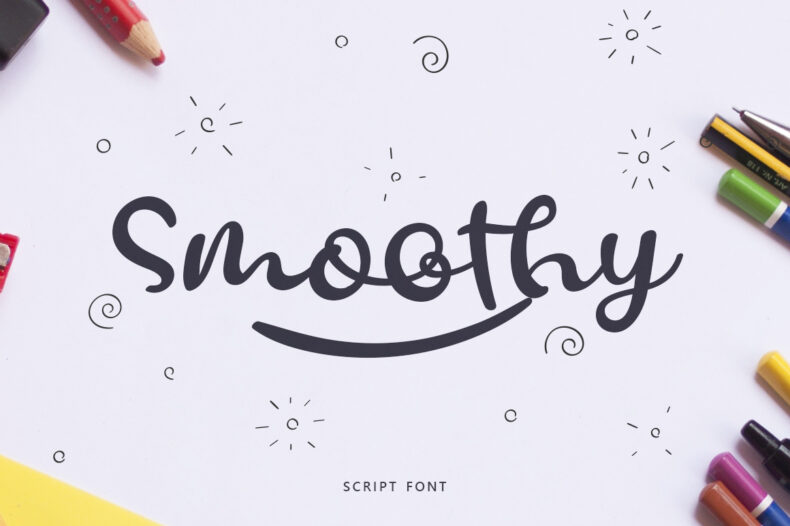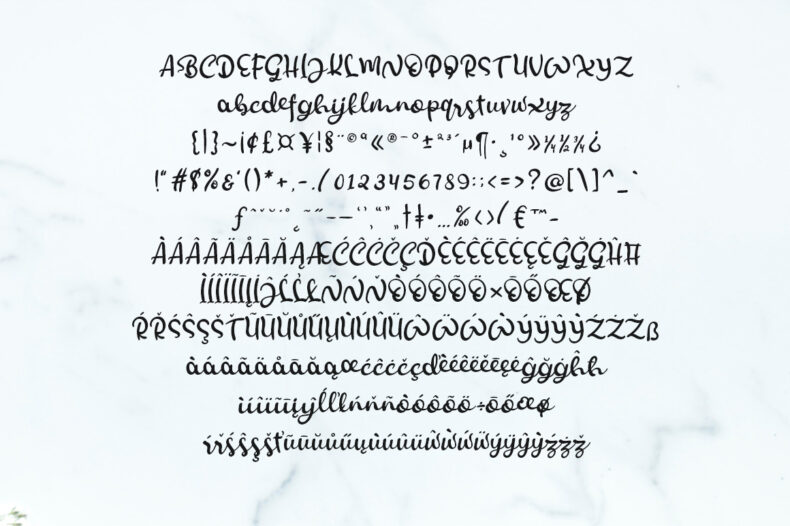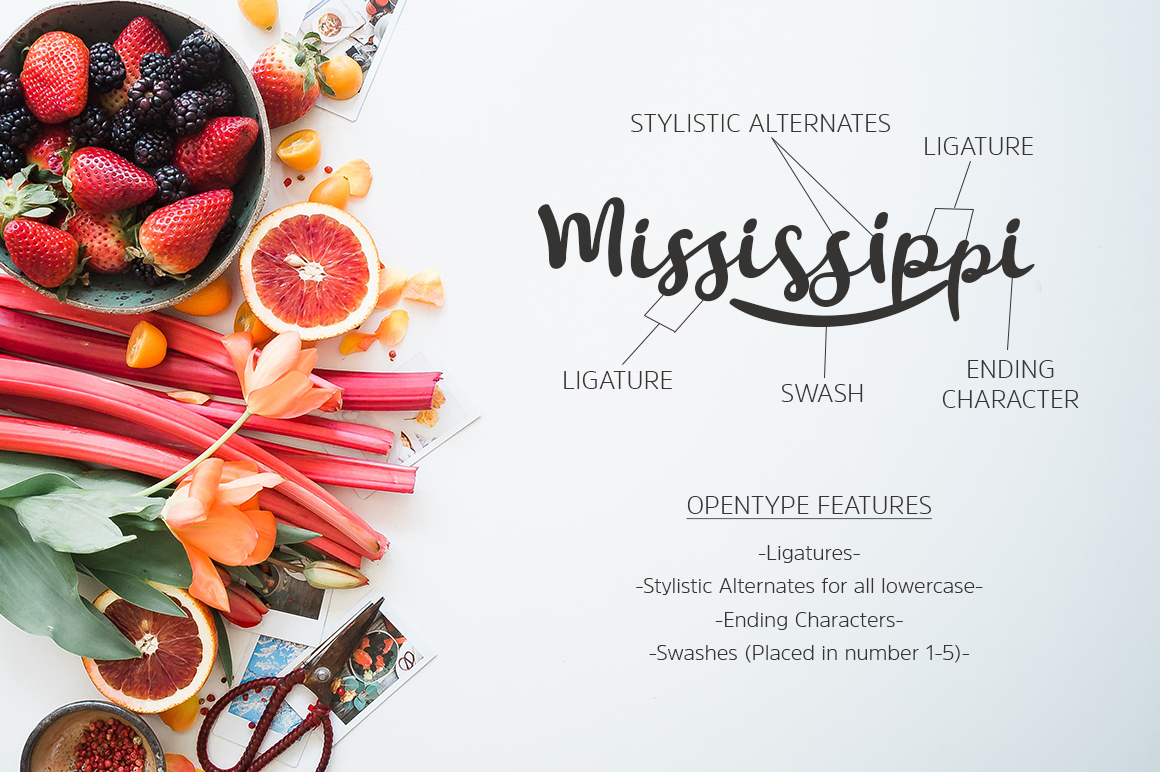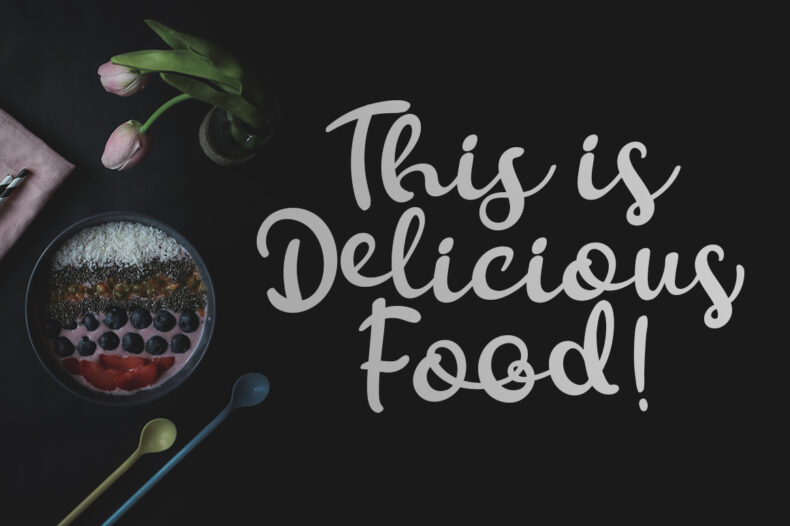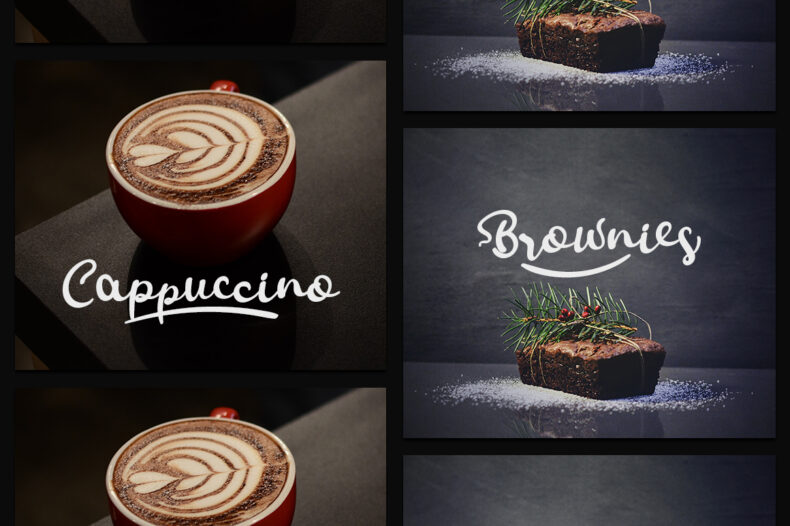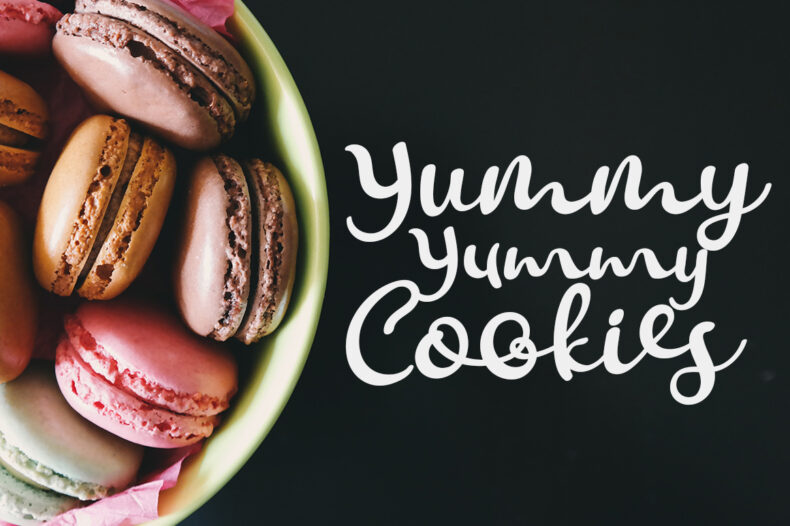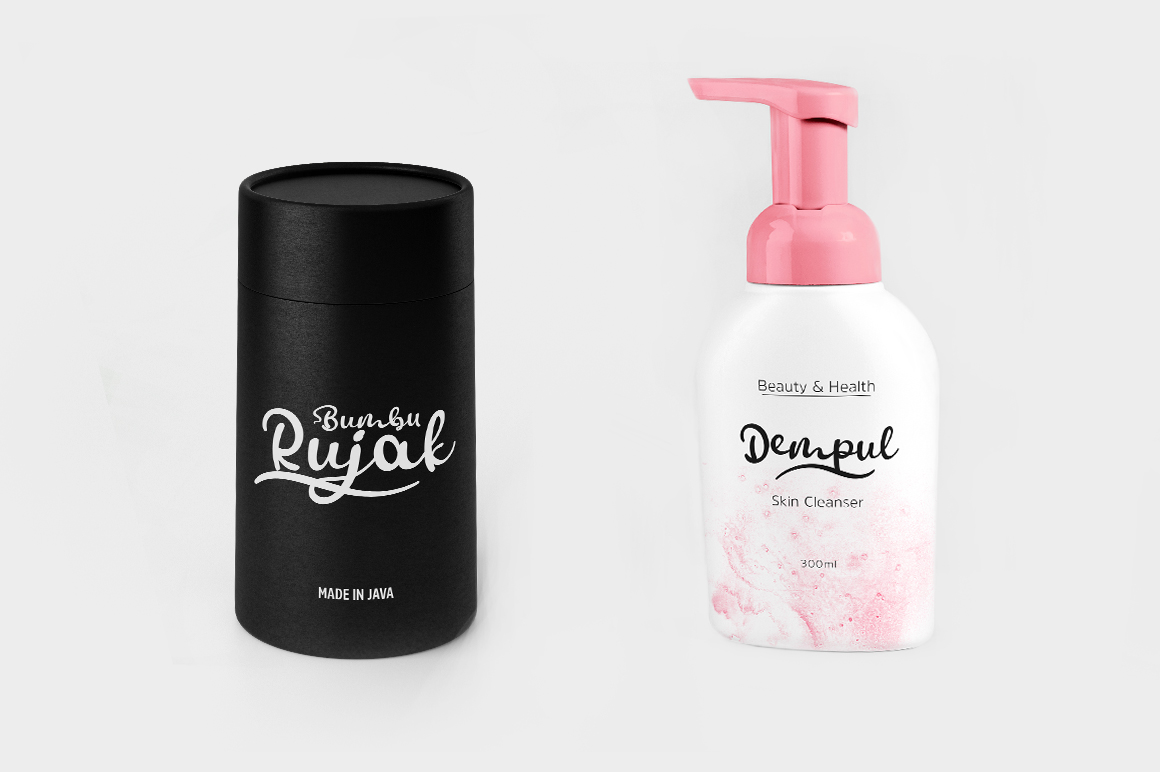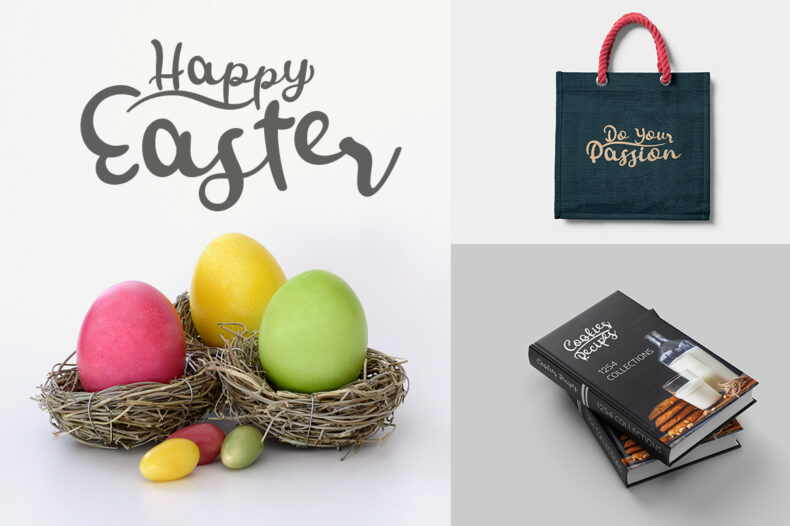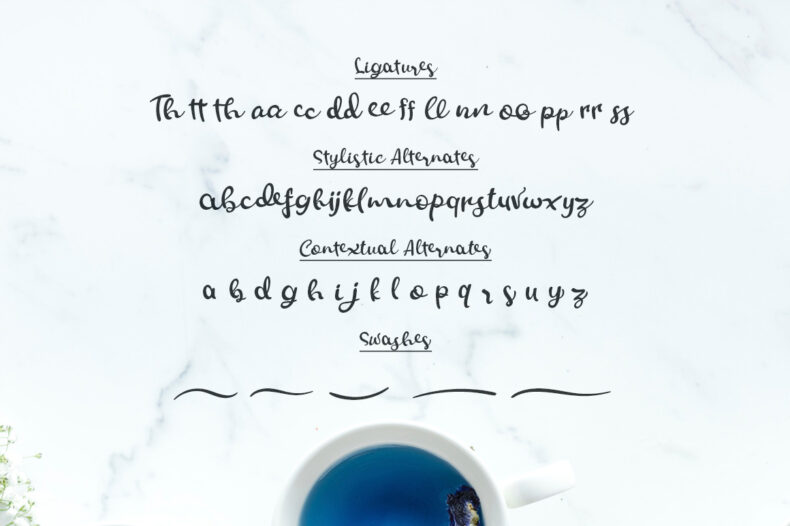
Smoothy is a bold script font with smooth digital-brush edges. Explore it for substantial wordmarks, packaging titles, and friendly display lettering.
Smoothy combines a sweet script character with bold strokes, making it a useful direction for a short product name or headline. Try it in a label concept, book-cover title, or apparel graphic where the lettering can hold a central position.
A clean background and simple secondary type will let the script's shape carry the composition. Preview your actual wording to judge the balance before choosing the final size.